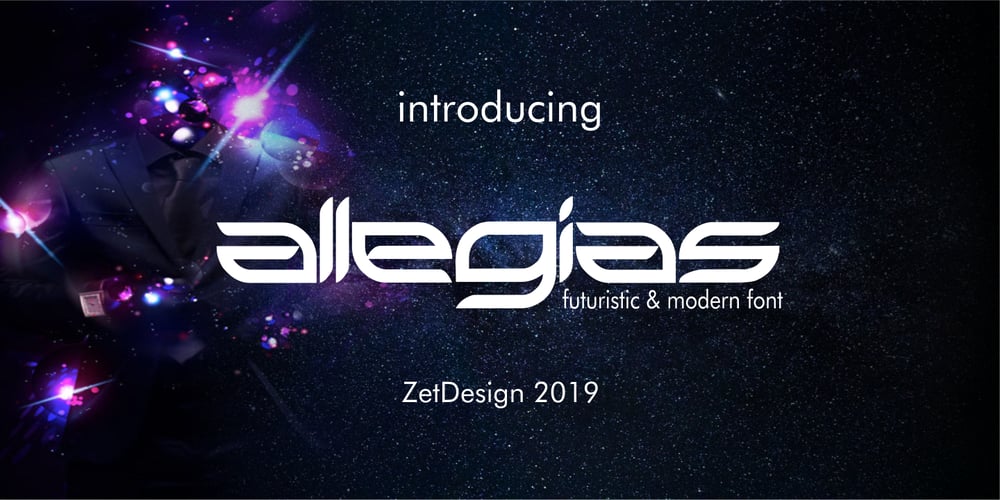
Allegias Font Family was designed by Ahmad Zulfikar Ali and published by ZetDesign. Allegias contains 2 styles and family package options. Allegias is our new product in a futuristic and modern style. This font is suitable for clothing, logos, magazines, banners, and more.